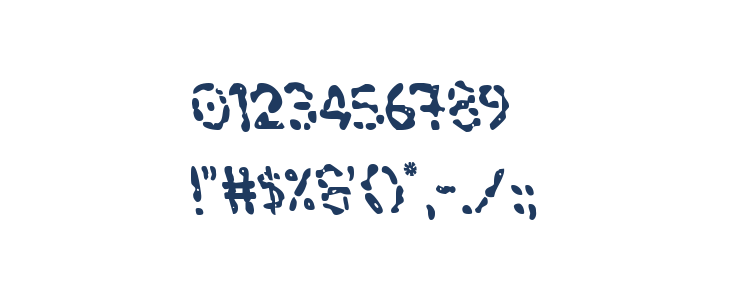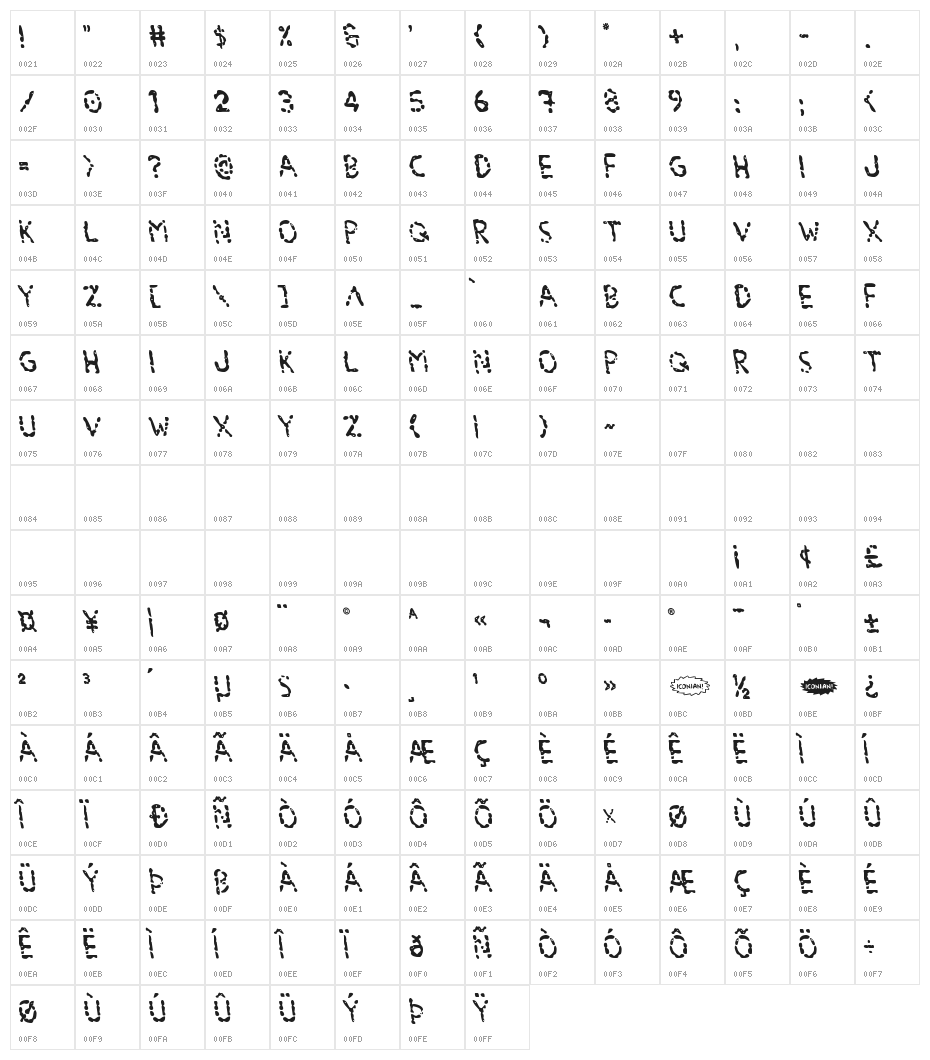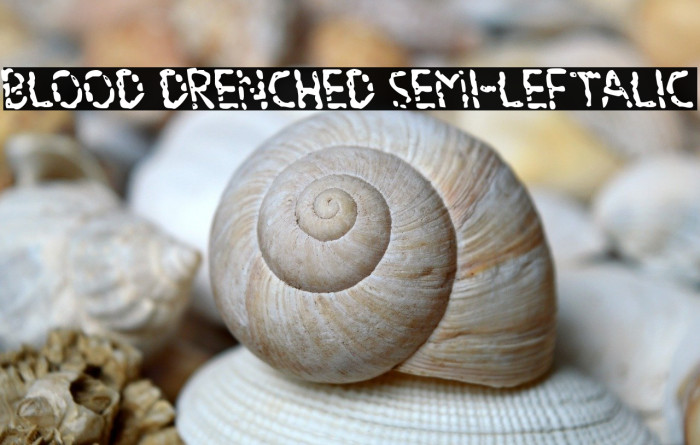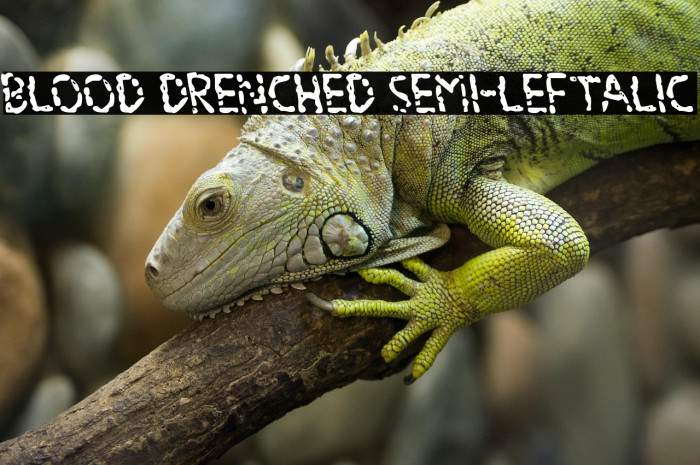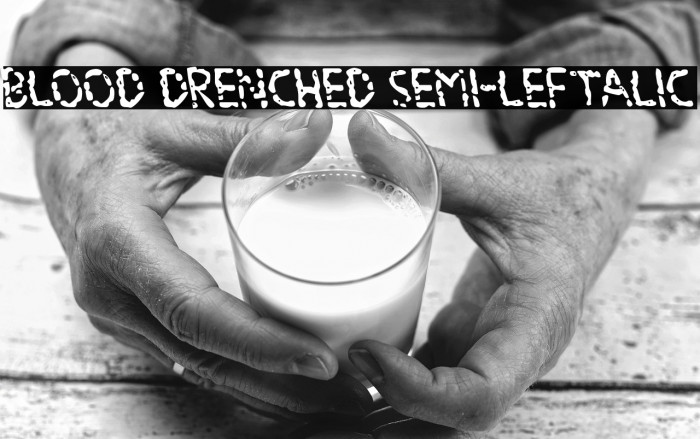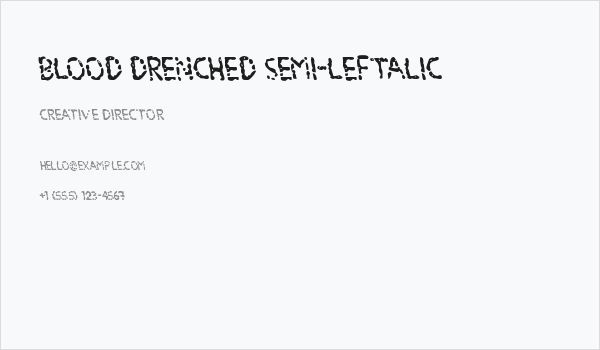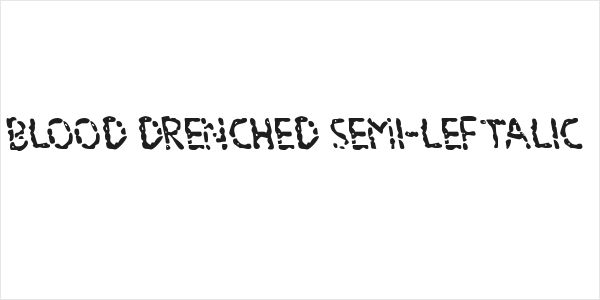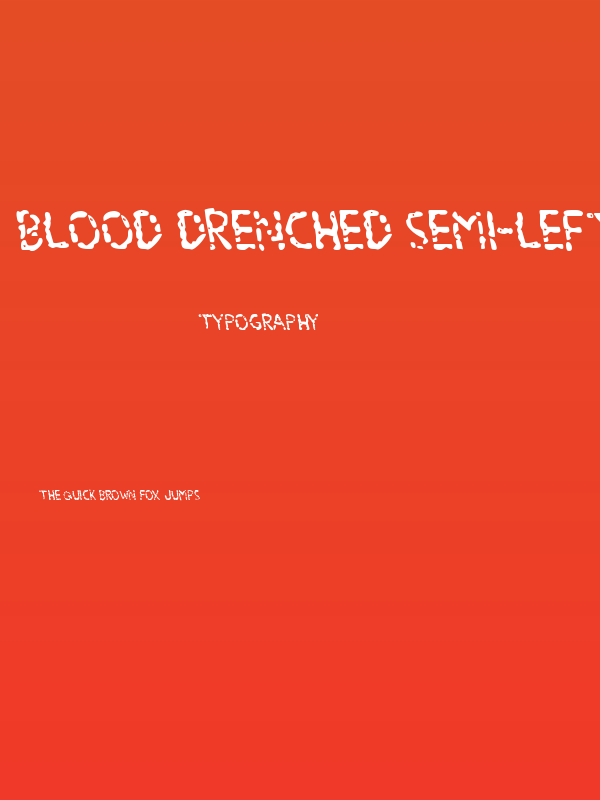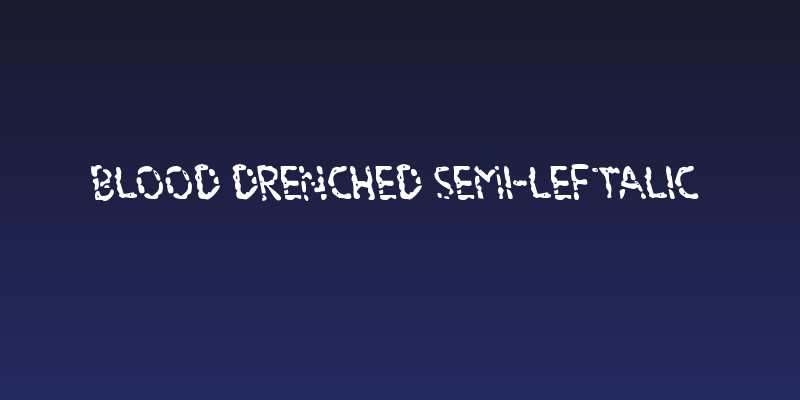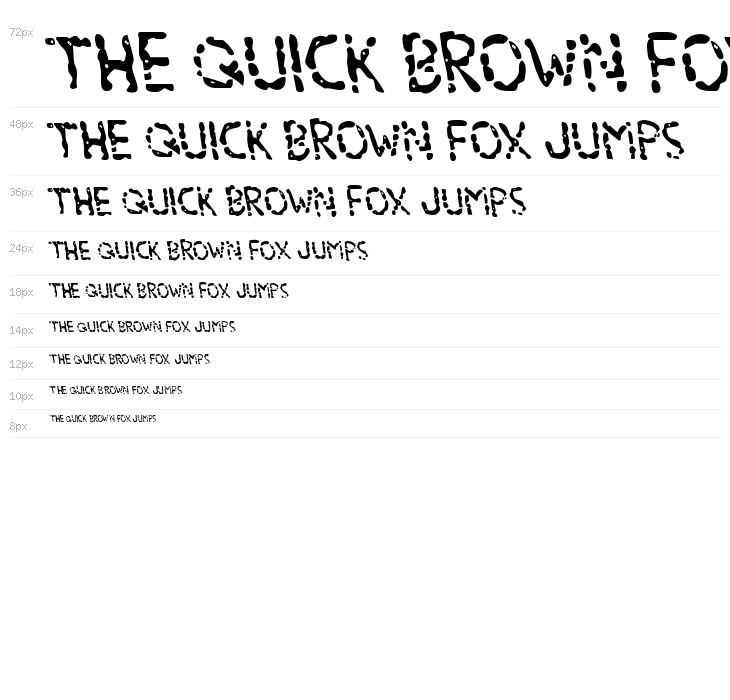
Blood Drenched Semi-Leftalic Font
Blood Drenched Semi-Leftalic Description
This font features a unique and striking design, characterized by its dripping, blood-like appearance. The letters are bold and irregular, with a semi-italic slant that adds a dynamic feel. The font's distinct style makes it ideal for horror-themed projects or Halloween events. Each character appears as if it is melting or bleeding, creating a dramatic and eerie effect. The numbers and special characters maintain the same unsettling aesthetic, ensuring consistency across all text elements. This font is perfect for creating eye-catching headlines or logos that require a touch of the macabre.